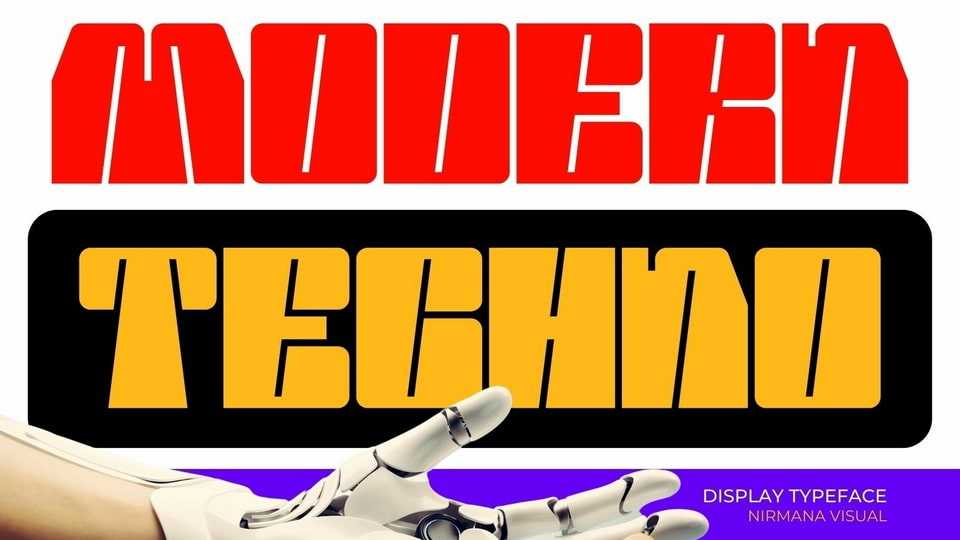
Download Modern Techno font, a cutting-edge techno typeface, designed to add a futuristic and sleek aesthetic to your designs. With its sharp lines, geometric forms, and high-tech vibe, this font is perfect for projects that require a modern and forward-looking visual identity.